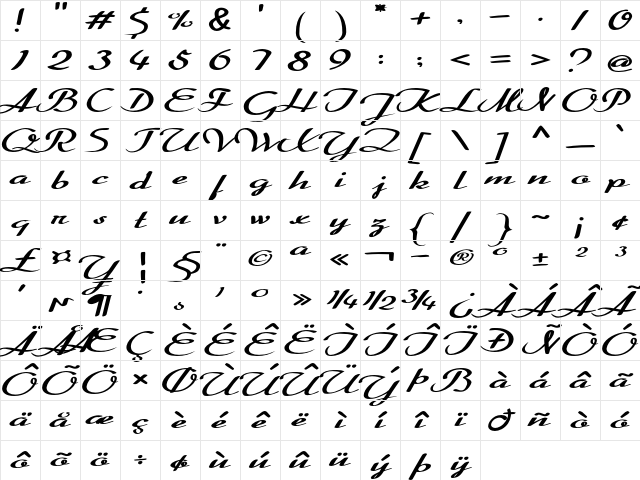
Lemillon Extra-expanded Bold
Style: Extra-expanded Bold
Lemillon Family
Lemillon Extra-expanded Bold
Design Context for Lemillon
Lemillon is a composed and adaptable typeface that performs quietly and consistently across a wide range of design contexts. Its bold stroke weight gives it real presence on the page.